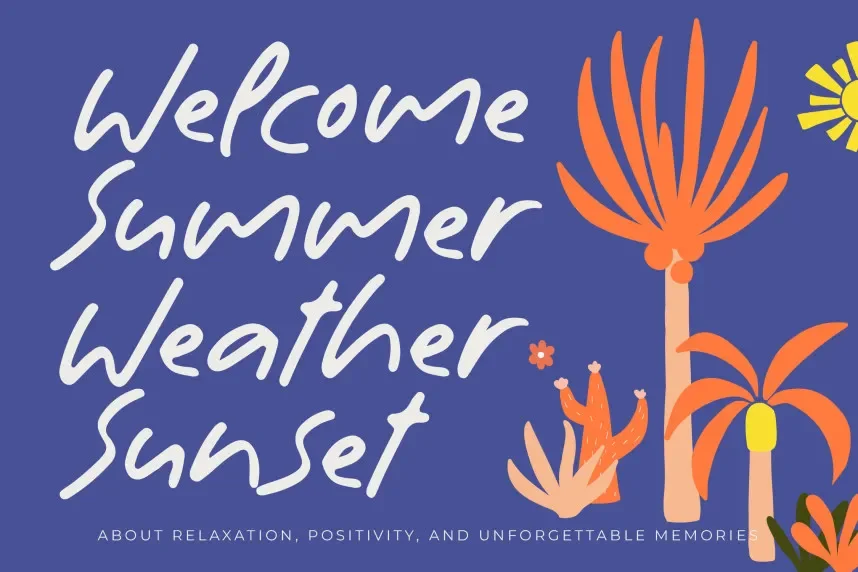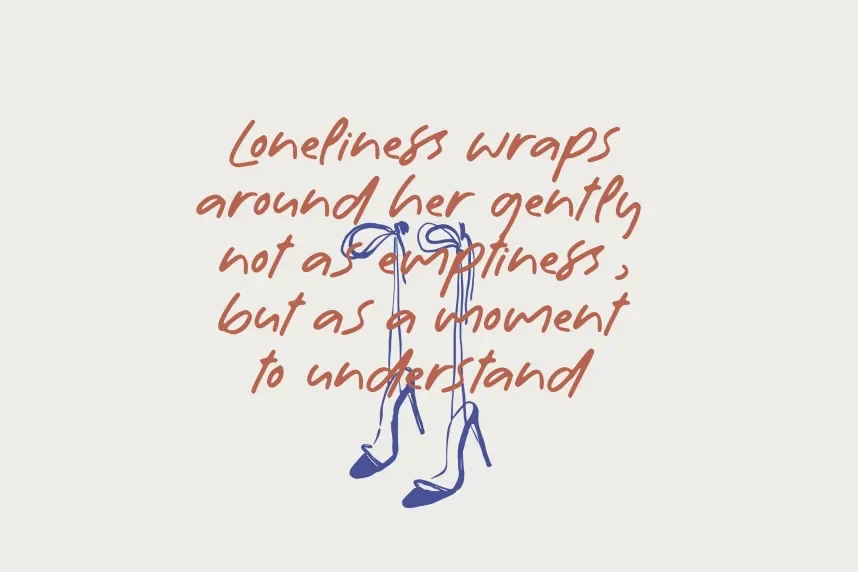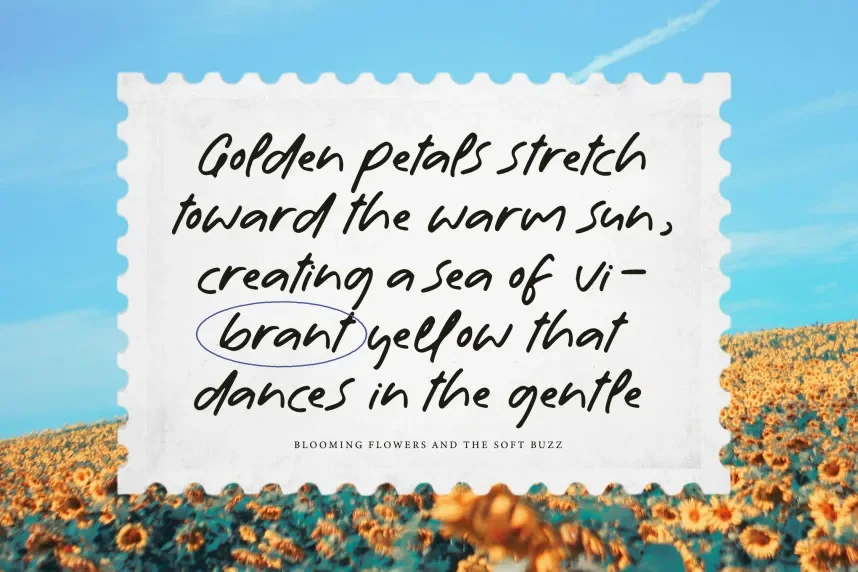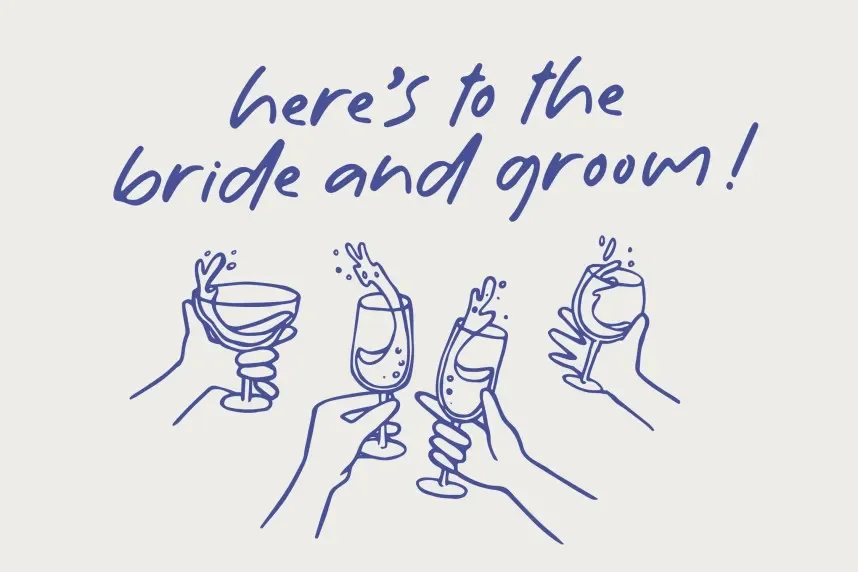
Meadow Yesterdream Font helps designers create decorative text without losing legibility. Many script fonts become unreadable in branding and invitations.
Meadow Yesterdream is a decorative script font with flowing curves, connected letterforms, and moderate stroke contrast. The font avoids heavy swashes, keeping text readable.